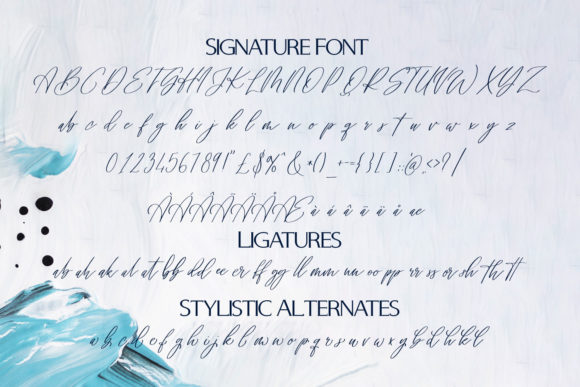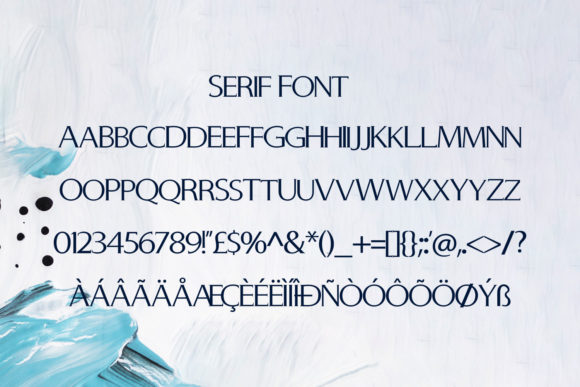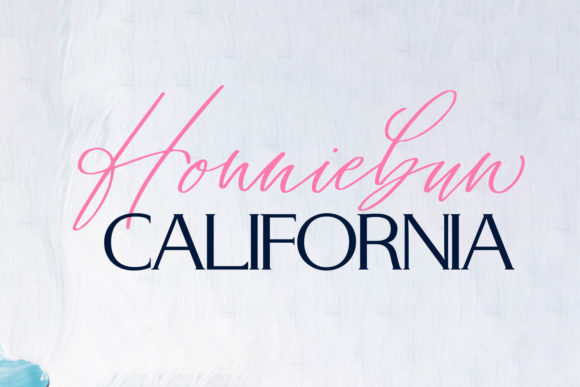
Introduction to Signature Archive Font
Do you remember that moment when a design finally comes together, and you feel like you’ve struck gold? For designers, it’s that ‘aha’ moment when all the elements align, and the project starts to shine. The Signature Archive Font is one of those game-changing design resources that can elevate your creative project to new heights. This spectacular duo font, featuring both serif and script styles, is incredibly versatile and can be used in a wide range of designs.
What sets the Signature Archive Font apart is its high quality and attention to detail. With its PUA encoding, you can access all the glyphs and swashes with ease, making it perfect for designers who value precision and control. Whether you’re working on a design project that requires a touch of elegance or a dash of playfulness, this font is sure to deliver.
Key Features of Signature Archive Font
- High-quality design resource ideal for creative projects, featuring a unique and elegant style.
- Comes with a transparent background, allowing for easy customization and integration into various designs.
- Font size: 1000 glyphs, covering a wide range of languages and characters.
- Resolution: High-resolution, ideal for print and digital applications.
- Unique characteristics include a vintage-inspired aesthetic, making it perfect for adding a touch of nostalgia to creative projects.
Honest Review: Signature Archive Font
I recently had the chance to work with the Signature Archive Font for a creative project, and I was thoroughly impressed with the quality of this design resource. The font has a unique, elegant feel that adds a touch of sophistication to any design.
- ✨ High-quality design: The Signature Archive Font is crisp and clean, making it perfect for a variety of design applications.
- ✨ Versatile: The font can be used for both print and digital projects, making it a valuable asset for any designer’s toolkit.
- ✨ Transparent background: The font’s transparent background makes it easy to layer over other design elements, adding flexibility to your designs.
- ⚠️ Limited font sizes: While the font looks great at larger sizes, it can become pixelated at smaller font sizes.
- ⚠️ Limited language support: The font may not be compatible with all languages, which could be a limitation for designers working on international projects.
Overall, I was impressed with the Signature Archive Font and would recommend it to designers looking for a high-quality, elegant font for their creative projects. With a few minor limitations, this font is a valuable addition to any design resource library.
The Signature Archive Font is commonly used for:
- Business card design
- Logo creation
- Infographic design
- Menu design